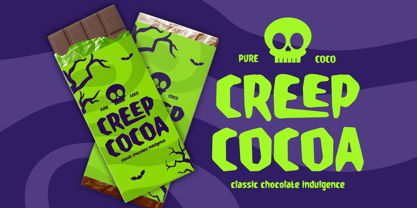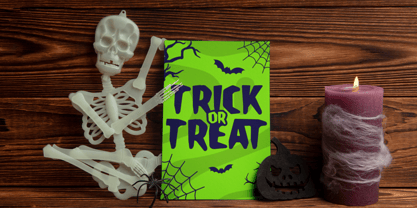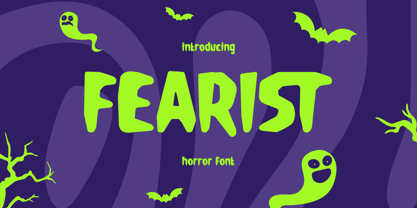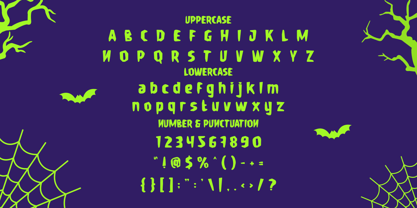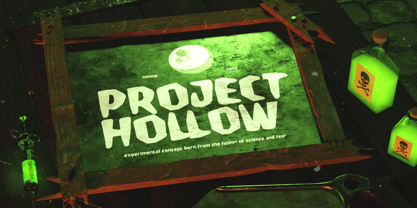
Fearist
von Shanaf
Die Schriftfamilie Fearist wurde von Yesie Erma Yunita entworfen und von Shanaf veröffentlicht. Fearist enthält 1 Stile. Mehr über diese Familie
Fearist Abstract Horror Font is a distinctive display typeface designed to deliver a spooky yet approachable personality. The letterforms are bold, rounded, and slightly uneven, creating a strong visual presence. Each character feels intentionally distorted, with softened corners and irregular proportions that add tension without sacrificing clarity. Stroke weight remains consistent, giving the font a solid and confident structure. The shapes feel chunky and full, which helps headlines stay readable at various sizes. Subtle inconsistencies between letters create an organic rhythm that feels hand-crafted. The font avoids sharp aggression and instead leans toward playful fear. This balance makes the typeface expressive, friendly, and versatile for themed designs. From a stylistic perspective, Fearist Abstract Horror Font blends horror elements with a fun, modern tone. It carries clear Halloween and scary vibes, yet it stays accessible for commercial use. The font fits naturally into logos, branding projects, posters, packaging, and promotional materials. It works well for film titles, book covers, magazine headlines, greeting cards, stickers, and creative advertisements. Designers can also apply it to crafting projects, invitations, and themed business identities. Fearist Abstract Horror Font supports storytelling through typography, especially for projects targeting entertainment, events, or seasonal campaigns. The playful horror character helps brands feel memorable rather than intimidating. With Fearist Abstract Horror Font, messages gain personality, mood, and instant thematic recognition without overwhelming the audience.
Designer: Yesie Erma Yunita
Foundry: Shanaf